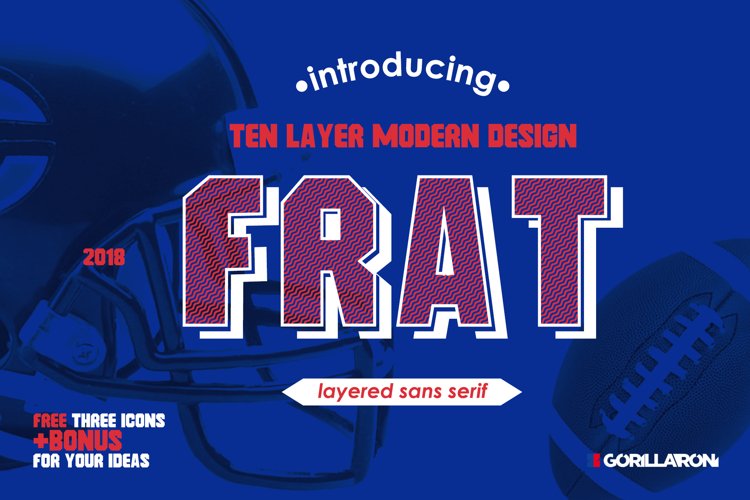
Frat Font - Modern Uppercase Sans Serif
Introducing a sans serif font - Frat.
This font will lend itself perfectly to a vast array of design, allowing you to use it in a variety of contexts.
Frat - it's big, bold, all caps without sans serifs.
Lay the different layers on top of each other and change colors in an instant or add your own sets of patterns
or textures for each layer for unlimited styles combinations.
• Sans serifs
• All uppercase display
• 10 layers
• Frat-Base
• Frat-Block
• Frat-Full
• Frat-Line
• Frat-Line-Shadow
• Frat-Shadow
• Frat-Waves
• Frat-Waves-Line
• Frat-Waves-Shadow
• Frat-Waves-Shadow-Line
• bonus (three icons)